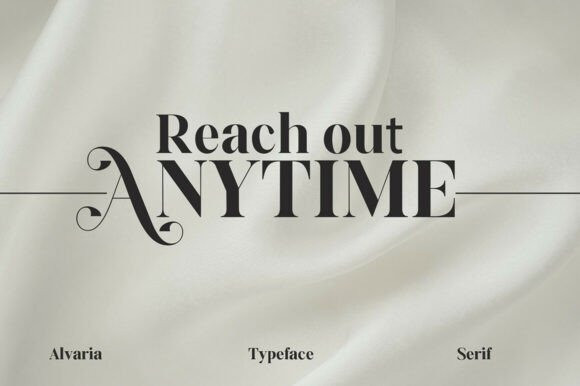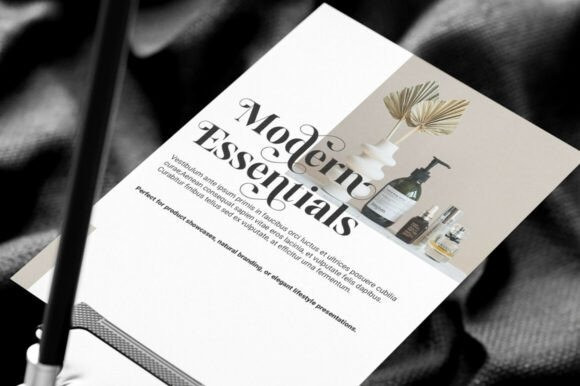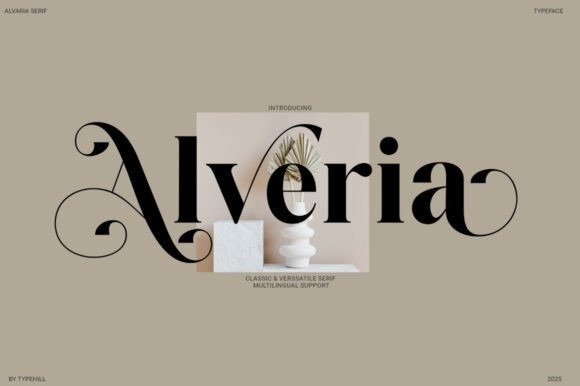
Alveria Font
Alveria Font is a timeless serif typeface that gracefully merges classic sophistication with modern versatility. Crafted with meticulous attention to detail, Alveria showcases elegant curves, refined serifs, and harmonious proportions—making it an ideal choice for editorial design, branding, packaging, logos, and luxurious print projects.
With its subtle sense of luxury and contemporary edge, Alveria adds refined character to everything from boutique brand identities to magazine layouts and elegant wedding invitations. All glyphs and swashes are PUA encoded, ensuring easy access across any design software without the need for special tools.